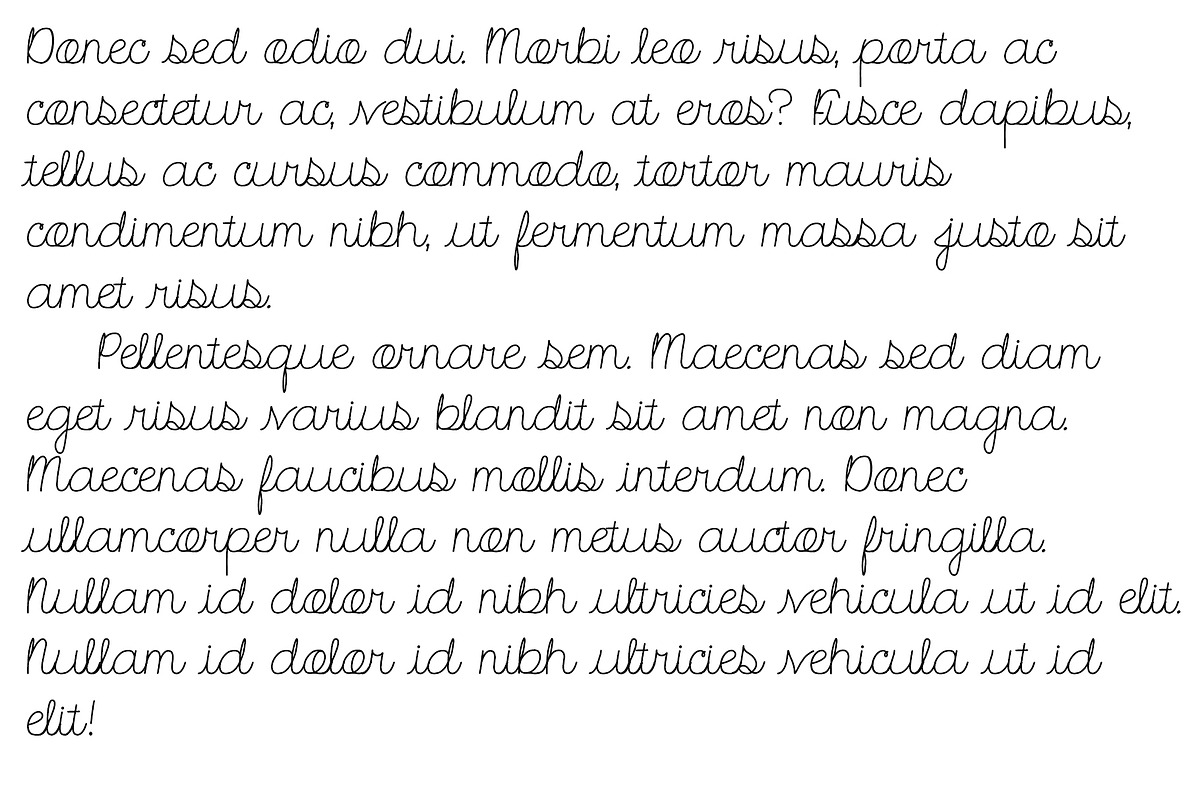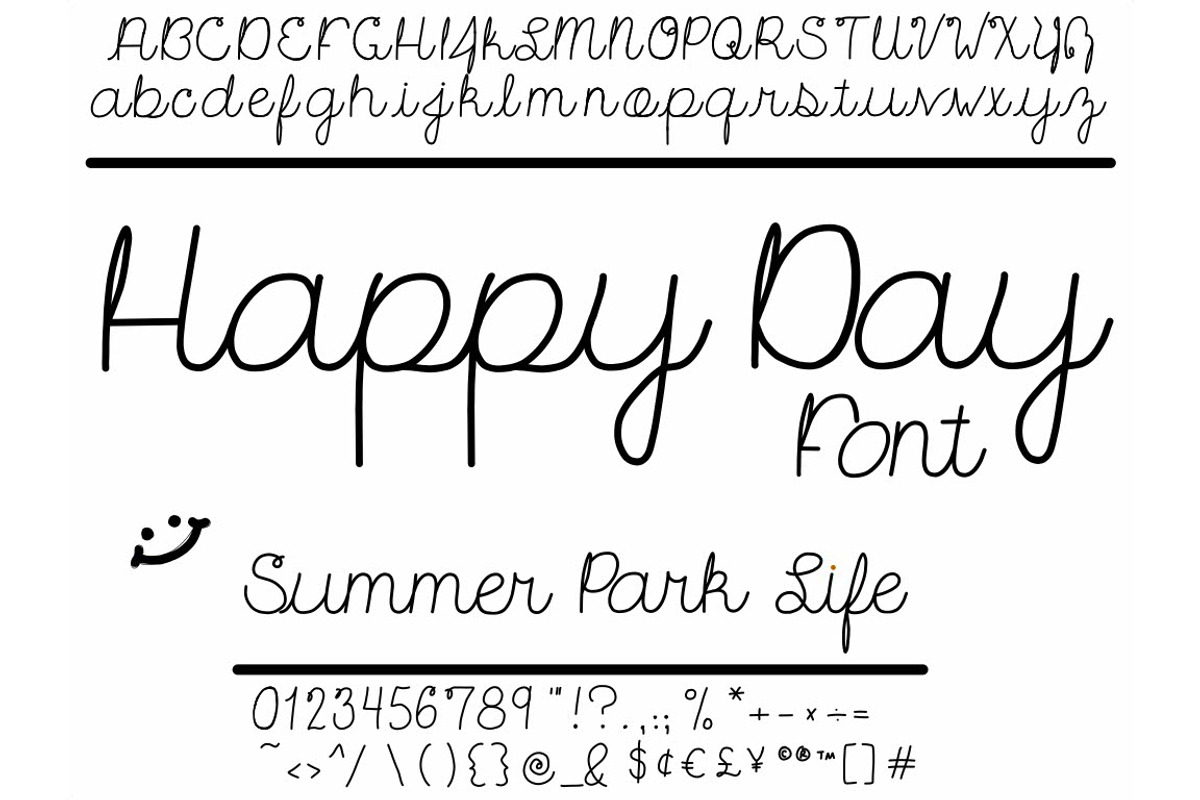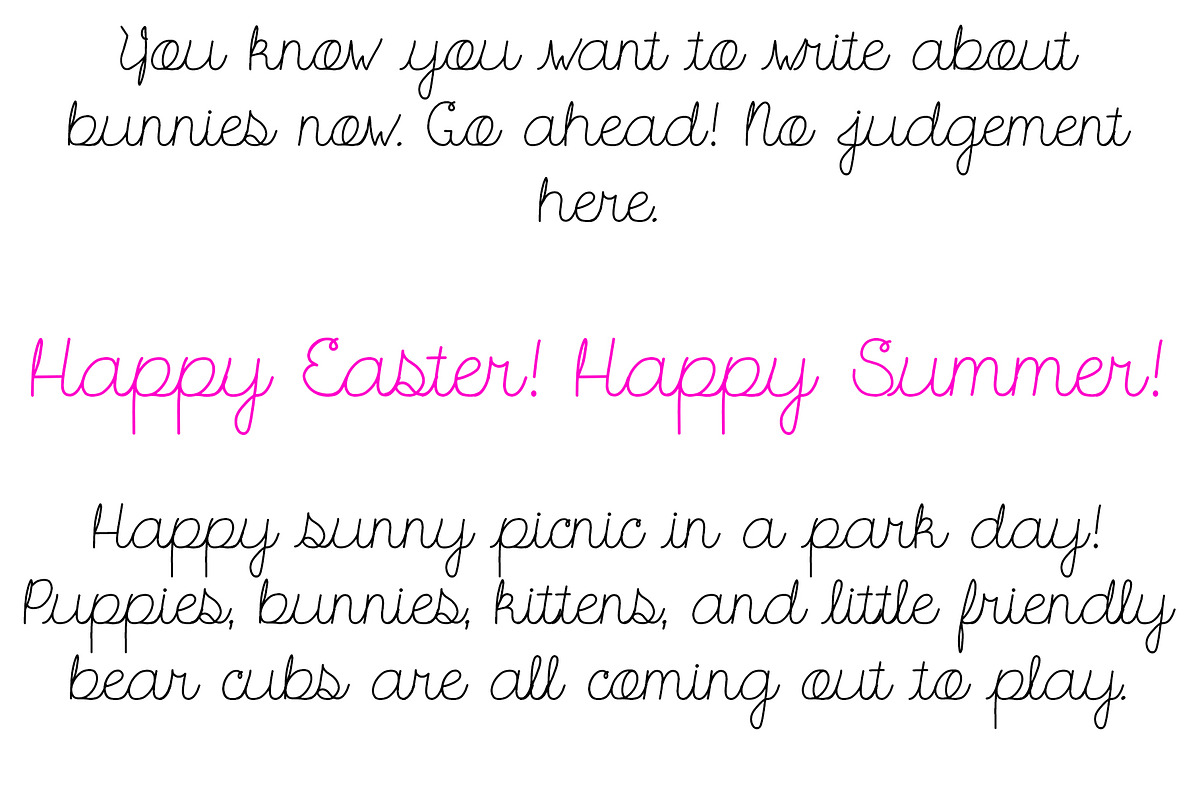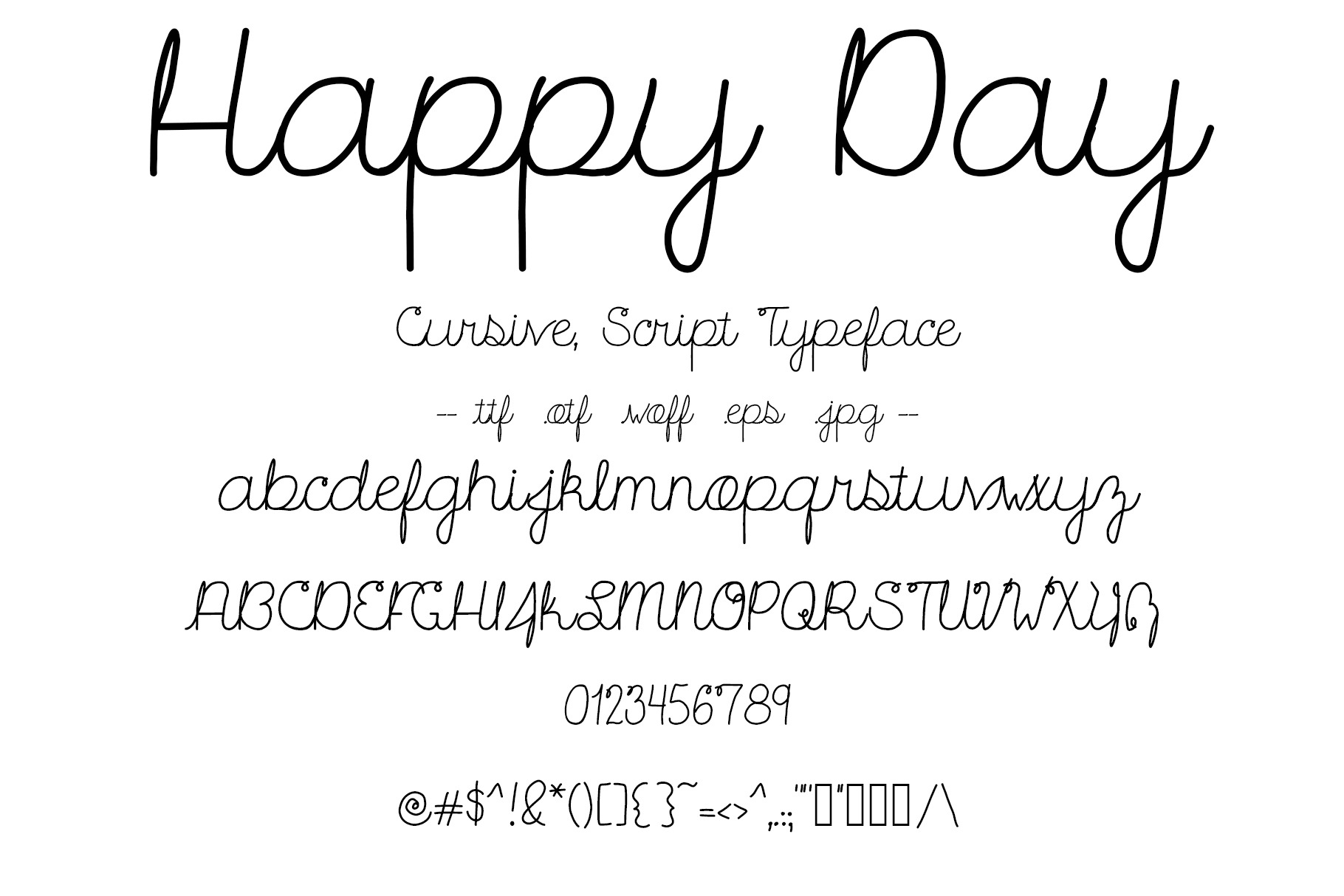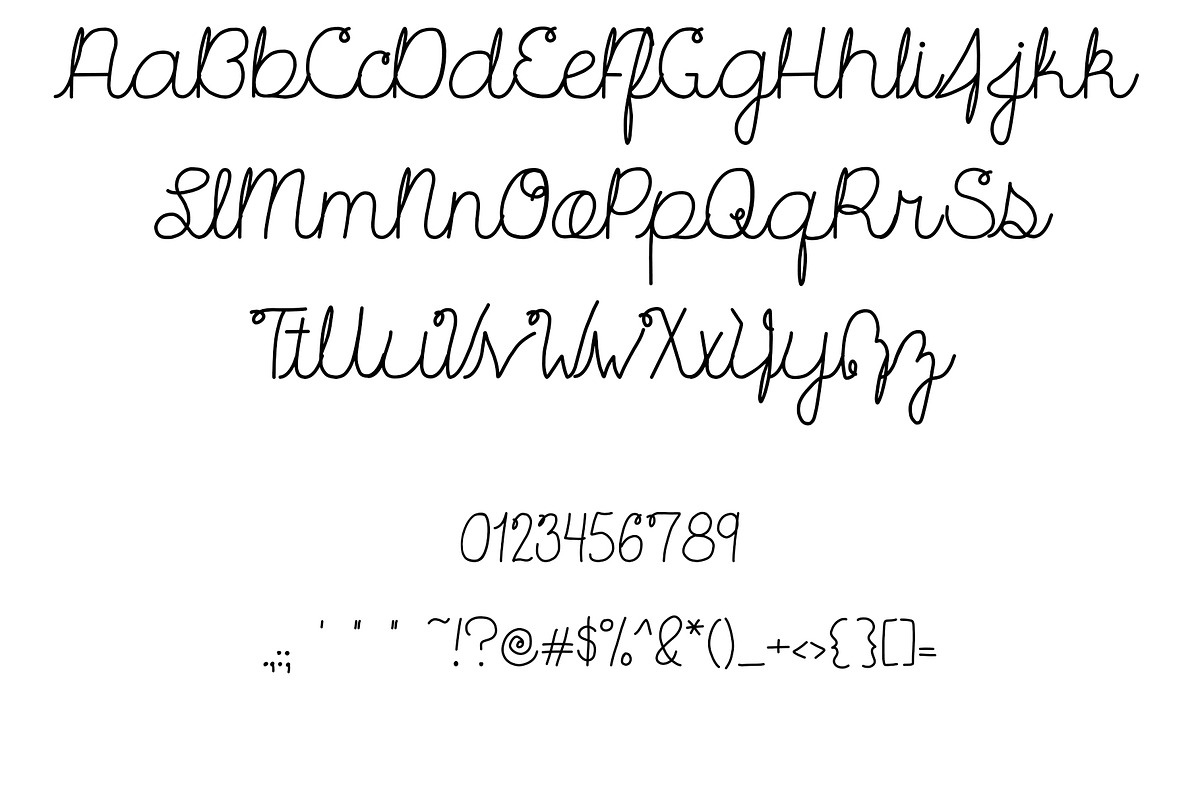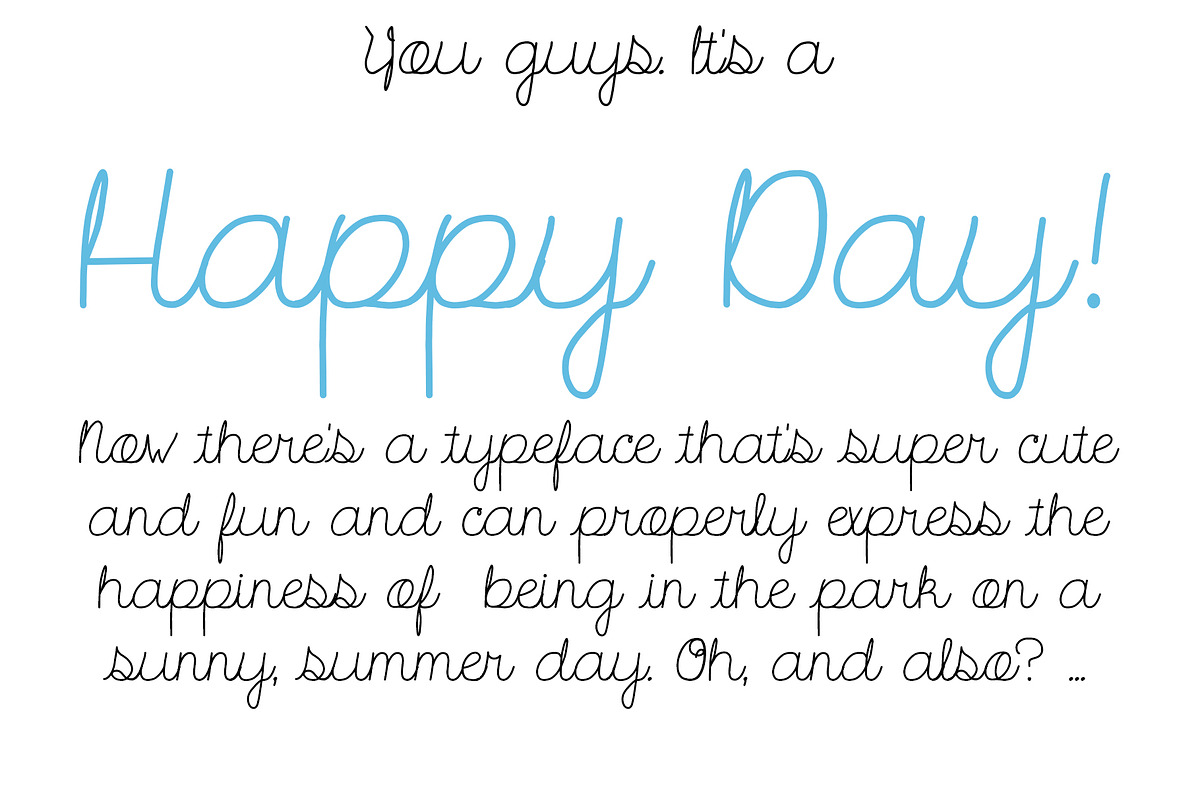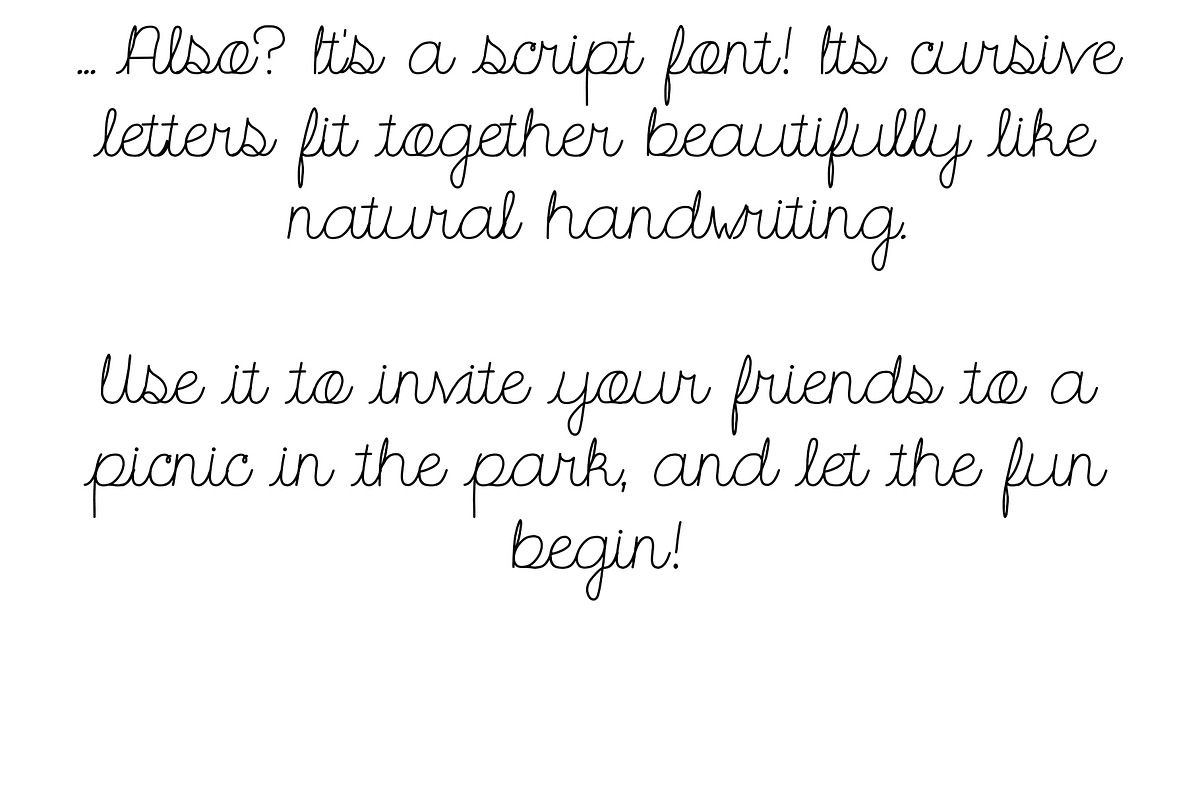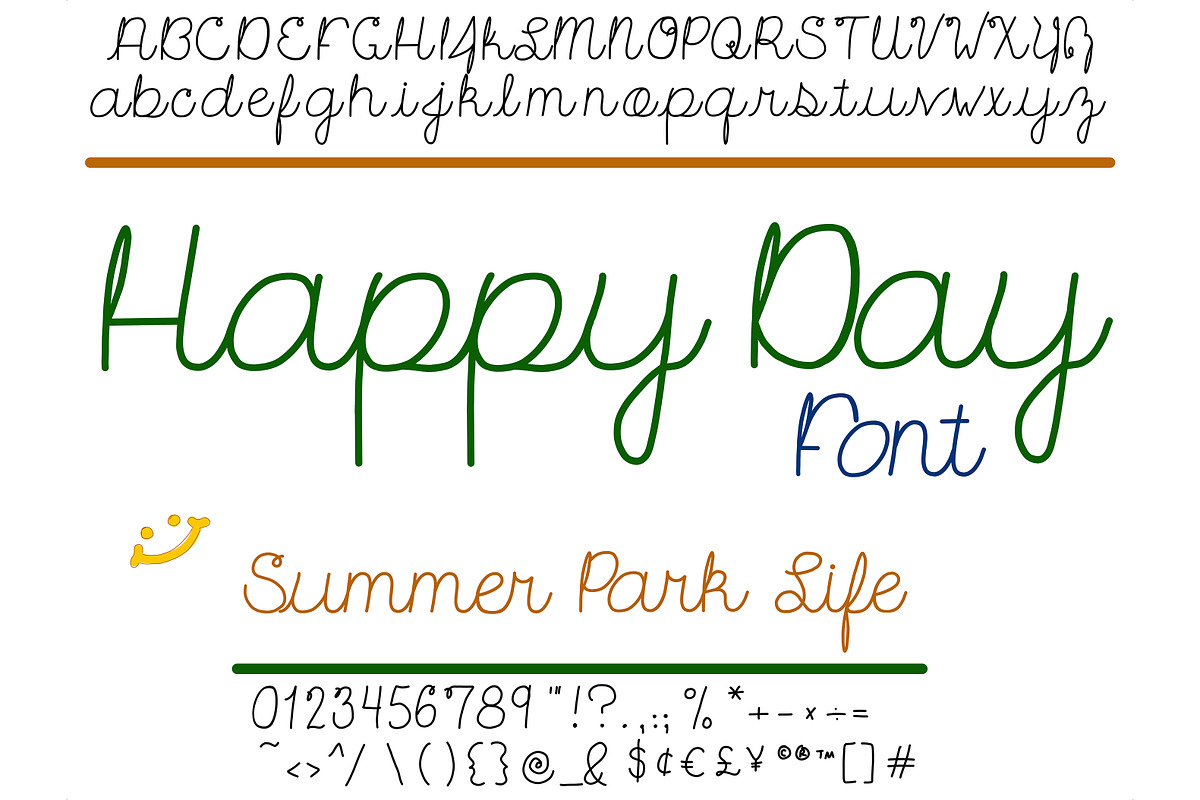
Font Happy Day Cursive Script Cute!
Hand drawn cursive script font. Happy Day! This happy typeface has wide, cute letters with pretty curves that link beautifully. Perfect for an invitation to a summer picnic or party.